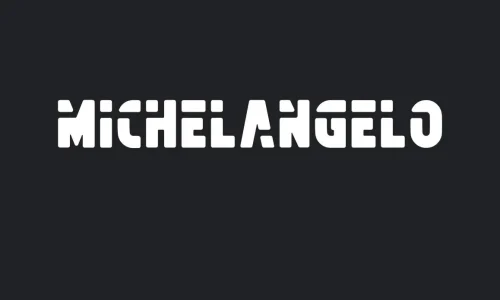
Here, we present a classic font family that is known by the name Point Soft Font. This attractive typeface was manufactured and shared by NDISCOVER. This stylish Font is a display font family which includes 8 weights. Each weight has its own features.
You can use these fonts for various purposes such as headings, logos, wedding invitations, t-shirts, posters, signs, and much more. Point Soft Typeface, has keen and Bold features. It is best for use in photoshop. Its similar boogaloo font has a lot of classic features.
Point Soft Font Family